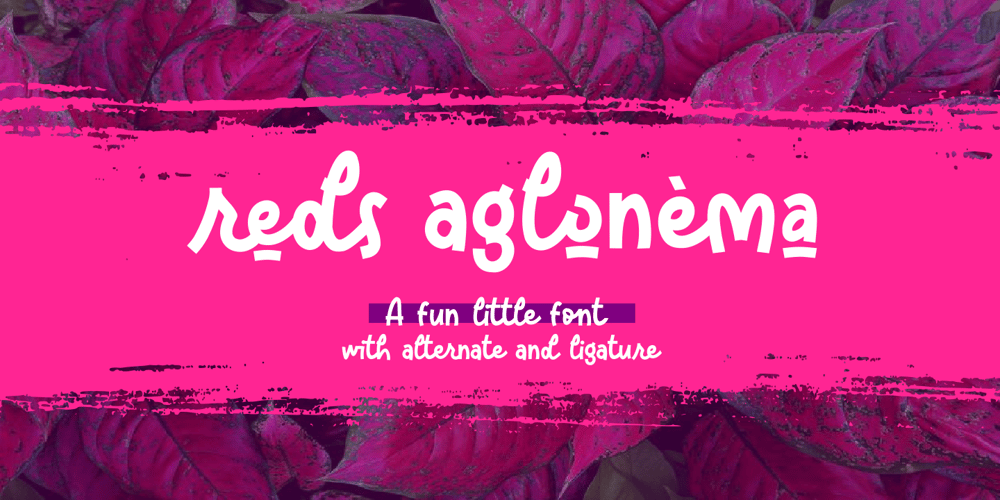
Reds Aglonema Font Family was designed by Zeenesia Studio and published by Zeenesia Studio. Reds Aglonema contains 1 styles and family package options. Introducing Reds Aglonema. new font for all of your fun projects!perfect for large design project like Tshirt, mugs, Advertising, bags, quotes, food , poster, fashion, custom sticker, magazine, and many others. It completed with numbers and punctuation. Multilingual support, alternate, ligatures and came with PUA encoded.